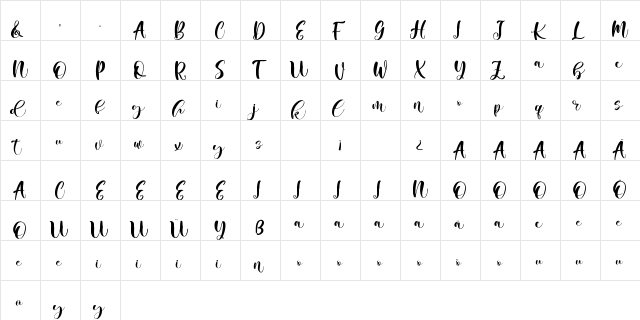
Camila Audrey Regular
| Foundry | Creakokun Studio |
| Designer | M Arif Dwi Prasetyo & Eko Nurcahyo |
Design Context for Camila Audrey Typeface
Camila Audrey is a composed and adaptable typeface that performs quietly and consistently across a wide range of design contexts.